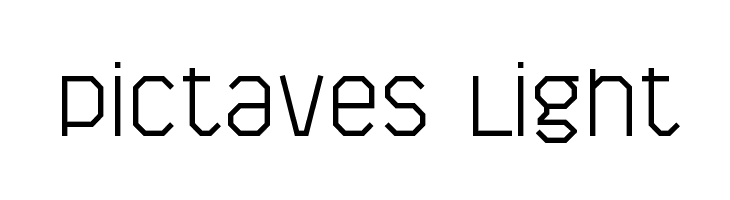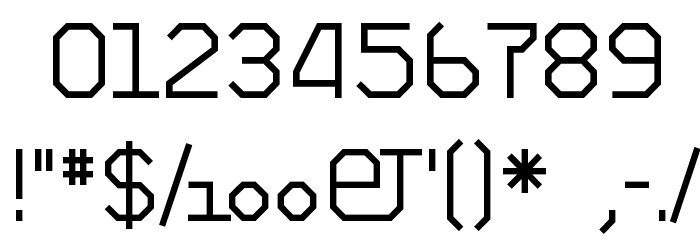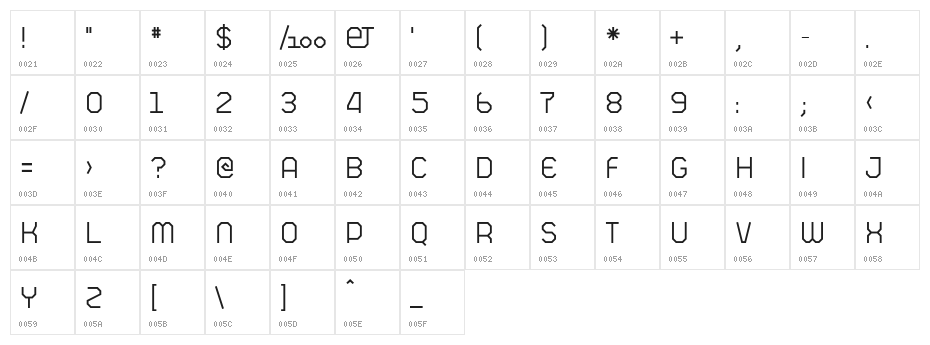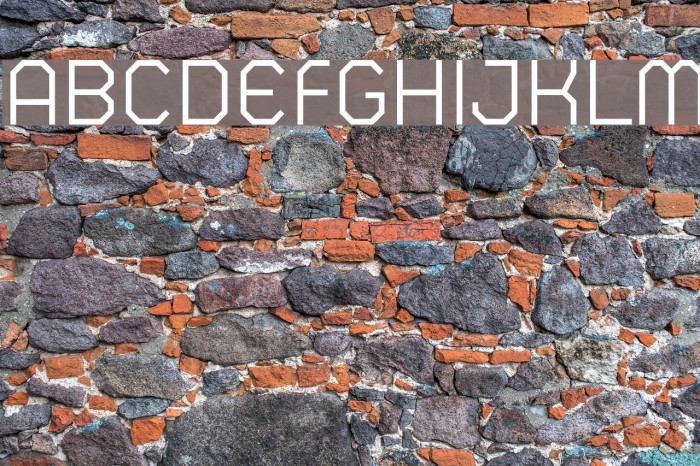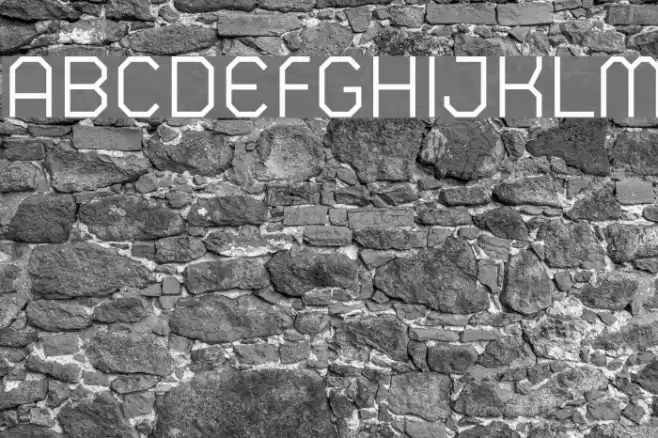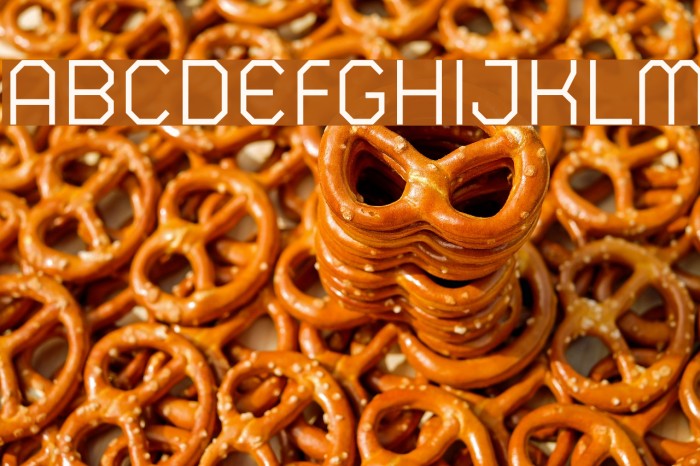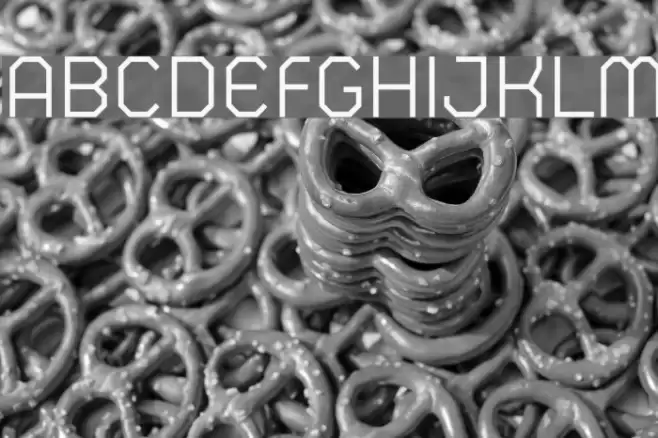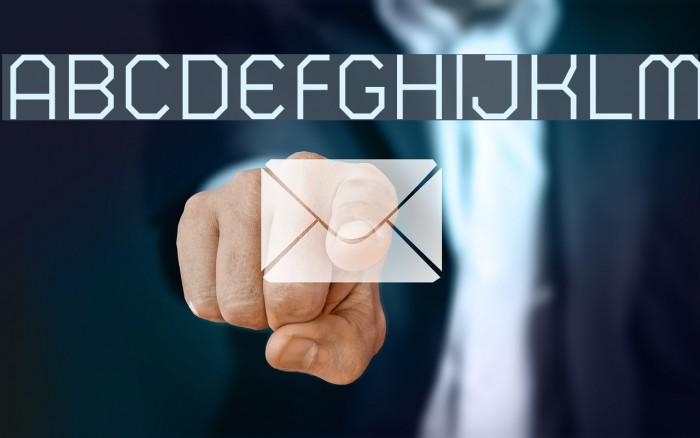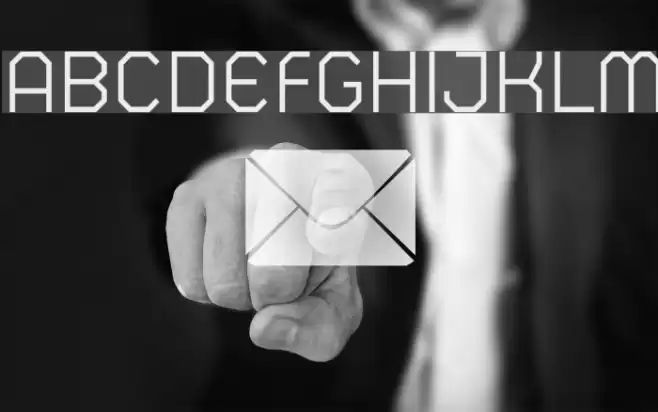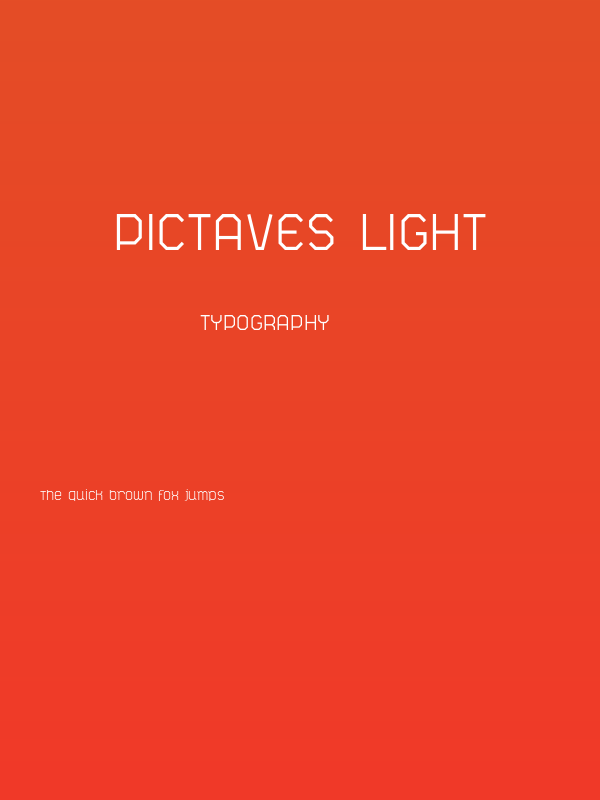
Pictaves Light Font
Pictaves Light Description
This font features a geometric and modern design with a distinct octagonal structure. The characters are composed of straight lines and sharp angles, giving it a futuristic and technical appearance. The uppercase and lowercase letters maintain a consistent style, with uniform stroke widths that contribute to its clean and minimalistic look. The numerals and special characters follow the same design principles, ensuring a cohesive visual identity across all elements. This font's unique style makes it suitable for projects that require a contemporary and edgy aesthetic.